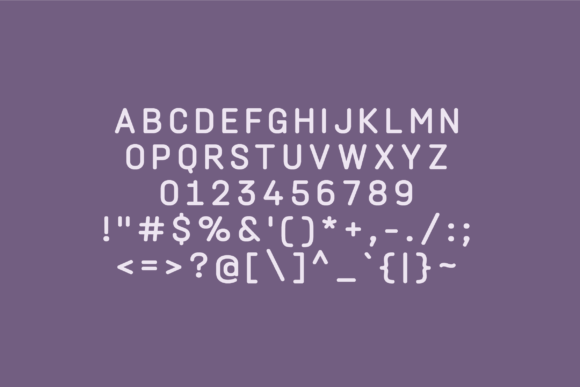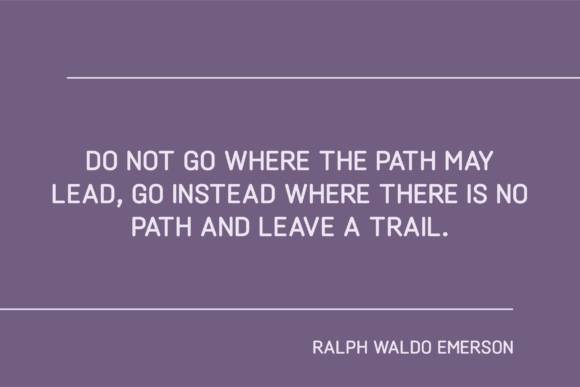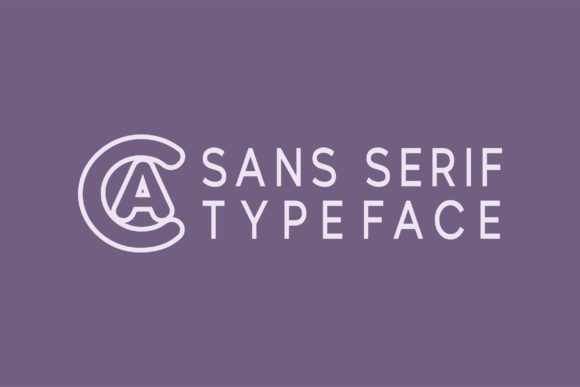
Unveiling Grotext: A Contemporary Sans Serif Typeface for Modern Designers
In the realm of typography, a new star has emerged: Grotext. This modern sans serif font is making waves among designers and crafters alike with its sleek lines, sophisticated charm, and incredible versatility. Whether you’re a seasoned professional or a hobbyist, Grotext is poised to become your go-to typeface for a wide range of projects.
What is Grotext?
Grotext is a thoughtfully crafted sans serif font that boasts an extensive character set, including a broad spectrum of uppercase characters, numerals from 0-9, and a versatile assortment of punctuation and symbols. This comprehensive range of characters makes Grotext an ideal choice for designers who require a high degree of flexibility in their typography.
Key Features of Grotext
- Extensive Character Set: Grotext features a wide range of uppercase characters, ensuring that you have the perfect glyph for every design requirement.
- Numeric Versatility: The font includes numerals from 0-9, allowing for precise and stylish numeric representation.
- Punctuation and Symbols: A versatile assortment of punctuation and symbols is at your disposal, enabling you to convey complex ideas with clarity and style.
- Adaptability: Grotext’s clean and modern design makes it suitable for a multitude of applications, from logos and wedding invitations to advertisements and print materials.
Design Applications for Grotext
One of the standout qualities of Grotext is its adaptability. This font can be used in a variety of design contexts, including:
- Logos: Create striking logos that exude modernity and sophistication.
- Wedding & Invitation Elements: Add an elegant touch to your wedding and invitation designs with Grotext’s refined lines.
- Inspirational Quotes: Frame compelling quotes that inspire and motivate with a font that commands attention.
- Advertisements: Craft advertisements that pop with Grotext’s bold and clean aesthetic.
- Print Materials: Elevate your print materials, such as brochures, flyers, and posters, with a font that offers both style and readability.
- Magazines: Curate stylish magazines that showcase your content in a modern and engaging way.
Why Choose Grotext?
Grotext is more than just a font; it’s a design tool that empowers you to create stunning visual content. Here are a few reasons why Grotext should be your top choice:
- Beauty in Every Stroke: Grotext’s design ensures that every stroke projects beauty, enhancing the aesthetic appeal of your designs.
- A Story in Every Character: With Grotext, every character tells a story, allowing you to convey your message with clarity and impact.
- Versatility Unmatched: The font’s wide range of applications makes it an invaluable addition to your design toolkit.
- Modern and Sophisticated: Grotext’s contemporary sans serif design ensures that your work looks modern, sophisticated, and highly professional.
Grotext is a game-changer in the world of typography. Its modern sans serif design, extensive character set, and incredible versatility make it the perfect choice for designers and crafters looking to elevate their work. Whether you’re creating logos, wedding invitations, advertisements, or print materials, Grotext is the ideal font to bring your vision to life. Discover the beauty and adaptability of Grotext today and take your designs to new heights.